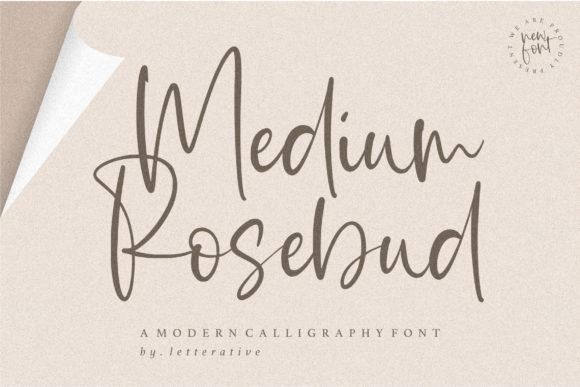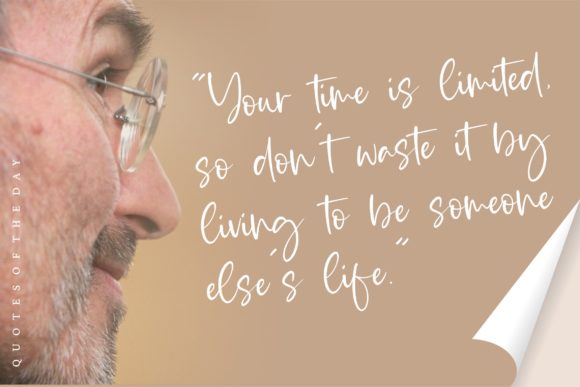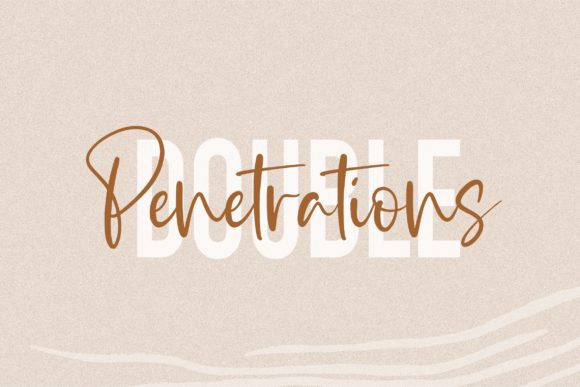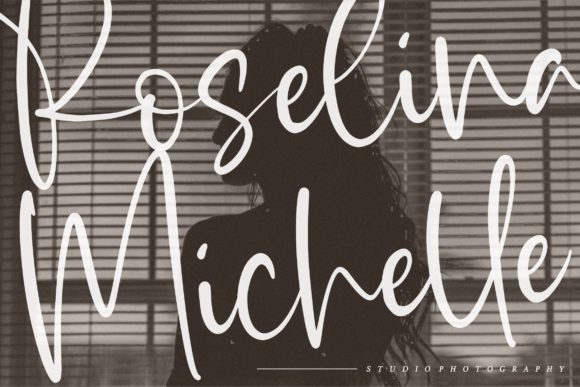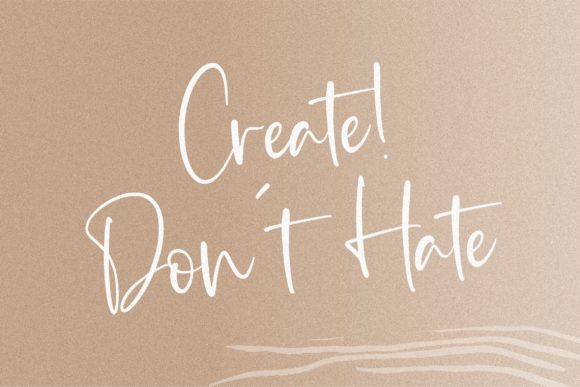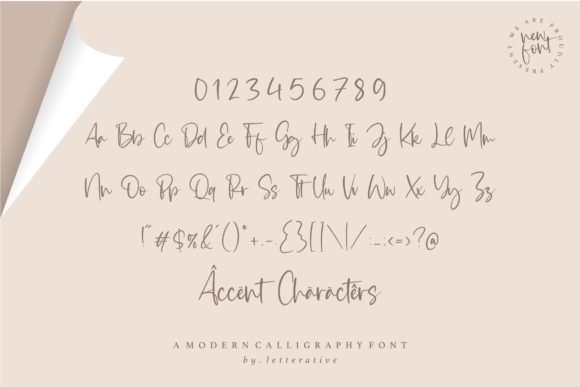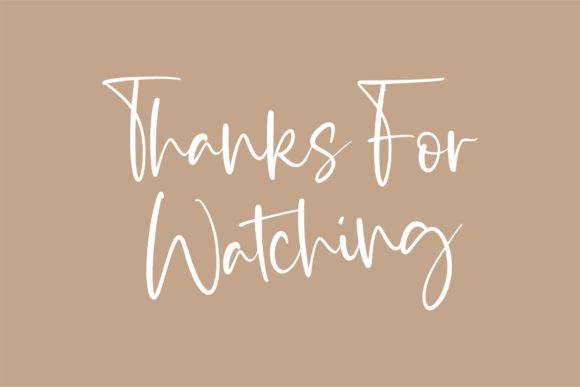
Medium Rosebud Font
About Medium Rosebud Font
Medium Rosebud is a lovely and distinct handwritten font. It is the ideal choice for creating eye catching logos, branding and quotes. Every letter has a unique and beautiful touch, which will make your design come alive!